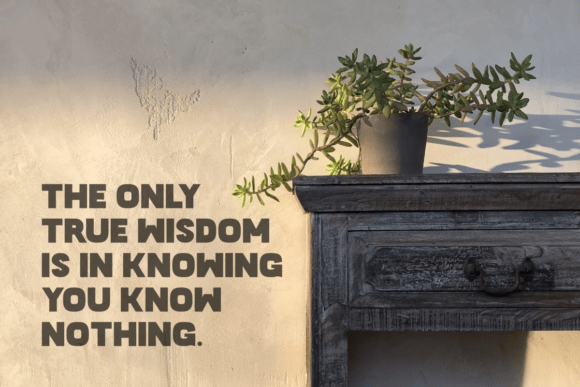
Introducing Energy Font: The Ultimate Choice for Powerful Designs
In the world of design, typography plays a crucial role in conveying messages, evoking emotions, and creating lasting impressions. When it comes to making a bold statement, there’s no room for subtlety. That’s where the Energy font comes in – a heavy, all-caps sans serif font designed to command attention and deliver powerful messages with unwavering authority.
The Power of Energy Font
Energy is more than just a font; it’s a design powerhouse that embodies strength, impact, and dynamism. Its robust, unwavering letterforms are crafted to convey a sense of stability and movement, making it perfect for designs that require a bold presence. Whether you’re working on a striking logo, an impactful event poster, or a compelling branding campaign for activewear, Energy font ensures your message is not just seen, but felt with undeniable force and authority.
Key Features of Energy Font
- Heavy and Bold: Energy font is characterized by its heavy, bold letterforms that demand attention and create a lasting impression.
- All-Caps Sans Serif: The font’s all-caps sans serif design ensures clarity, readability, and a modern aesthetic.
- Dynamic and Stable: Energy font strikes the perfect balance between dynamism and stability, making it suitable for a wide range of design projects.
- Versatile: From logos and posters to website headlines and social media graphics, Energy font is the ultimate choice for designers seeking a powerful typeface.
Use Cases for Energy Font
Energy font is an incredibly versatile typeface that can elevate a wide range of design projects. Here are some use cases where Energy font truly shines:
- Logos: Create striking logos that make a bold statement and leave a lasting impression on your audience.
- Event Posters: Design impactful event posters that grab attention and convey the excitement and energy of your event.
- Website Headlines: Use Energy font to create dynamic headlines that draw visitors in and make your website stand out.
- Activewear Branding: Craft compelling branding for activewear that embodies energy, dynamism, and a sense of adventure.
- Social Media Graphics: Create powerful social media graphics that resonate with your audience and make your message heard.
Why Choose Energy Font?
With so many fonts available, why choose Energy font for your design projects? Here are some compelling reasons:
- Uniqueness: Energy font stands out from the crowd with its bold, heavy letterforms that demand attention.
- Versatility: The font’s versatility ensures it can be used across a wide range of design projects, from logos to social media graphics.
- Emotional Connection: Energy font creates an emotional connection with your audience, conveying a sense of strength, impact, and dynamism.
- Authority: The font’s commanding presence ensures your message is delivered with authority and confidence.
Tips for Using Energy Font Effectively
To get the most out of Energy font, here are some tips for using it effectively in your design projects:
- Pair with Contrasting Fonts: Pair Energy font with contrasting fonts to create visual interest and hierarchy.
- Use for Headlines: Use Energy font for headlines and titles to create a bold statement and draw attention.
- Balance with White Space: Balance Energy font with white space to avoid overwhelming your audience and ensure clarity.
- Experiment with Colors: Experiment with different colors to find the perfect match for your brand and design project.
In conclusion, Energy font is a powerful design tool that can elevate your design projects and make a lasting impression on your audience. Its bold, heavy letterforms and versatile design make it perfect for a wide range of applications, from logos to social media graphics. By choosing Energy font, you’re ensuring your message is delivered with authority, confidence, and undeniable force. So why settle for subtlety when you can make a bold statement with Energy font?
FAQs About Energy Font
- What is Energy font? Energy font is a heavy, all-caps sans serif font designed for making bold statements and commanding attention.
- What is Energy font used for? Energy font is perfect for designs that require strength, impact, and a bold presence, such as logos, event posters, website headlines, activewear branding, and social media graphics.